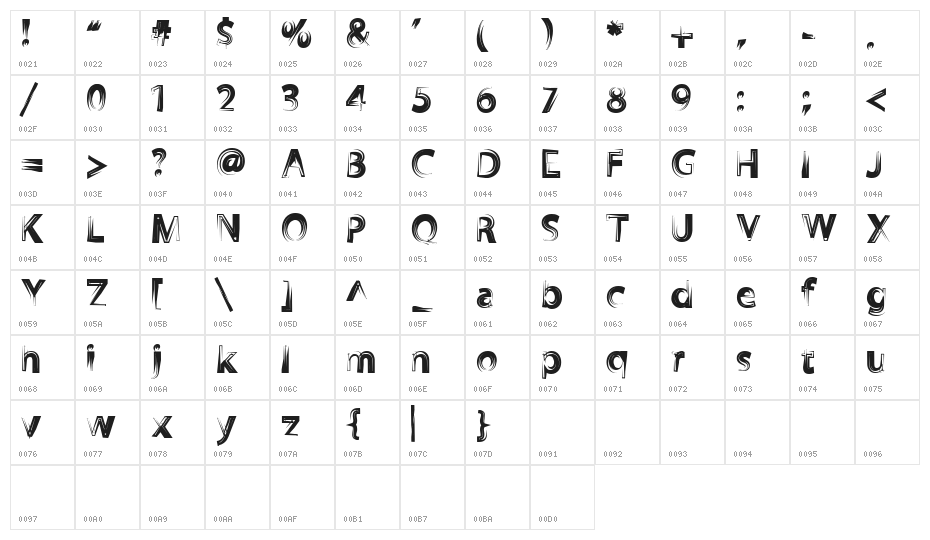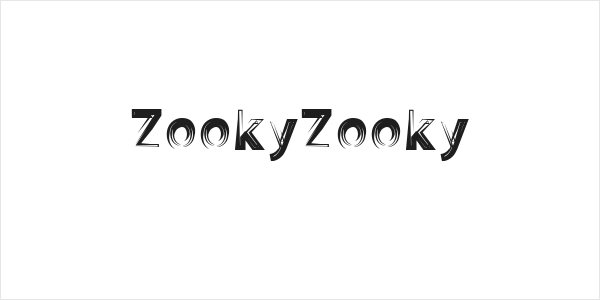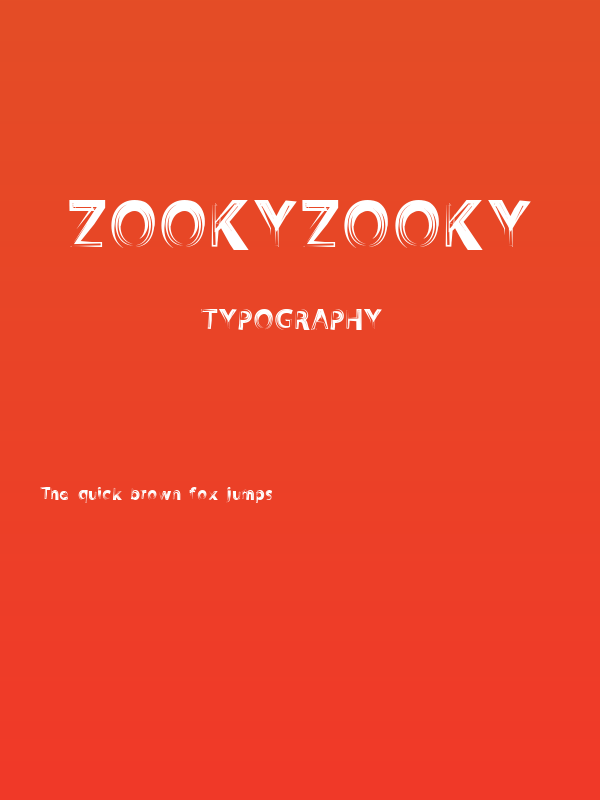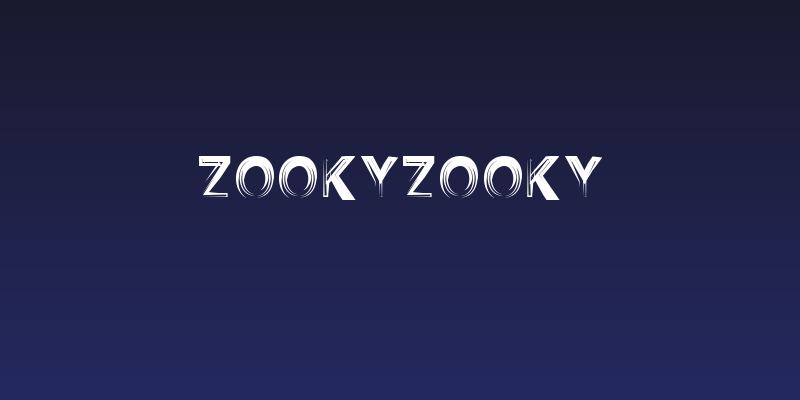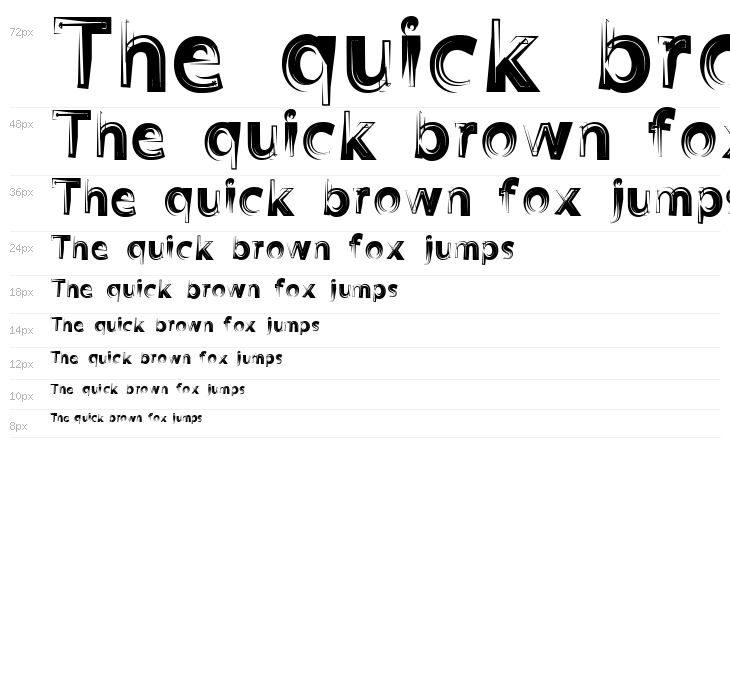
ZookyZooky Font
ZookyZooky Description
This font features a bold and dynamic style with a playful, artistic flair. Each character is uniquely designed with a mix of solid and sketch-like strokes, creating a sense of movement and energy. The uppercase and lowercase letters maintain a consistent height, while the numbers and special characters follow the same artistic theme. The font's irregular and creative design makes it stand out, offering a visually engaging experience. Its distinctive style is perfect for projects that require a touch of creativity and uniqueness.
| Overall Style | Modern, Artistic |
| Use Case | Headlines, Posters, Branding |
| Proposed Projects | Ideal for creative projects such as posters, album covers, and branding that require a unique and artistic touch. |